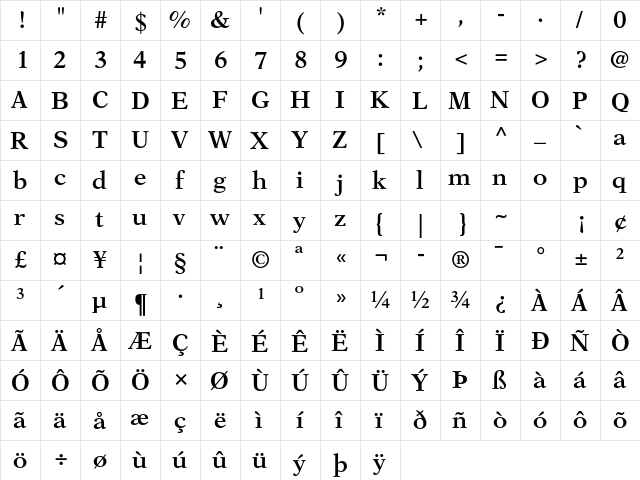
New Aster LT Std Semibold
| Designer | Francesco Simoncini |
Design Context for New Aster LT Std Typeface
New Aster LT Std is a composed and adaptable typeface that performs quietly and consistently across a wide range of design contexts. The heavy weight commands attention and anchors typographic hierarchies.